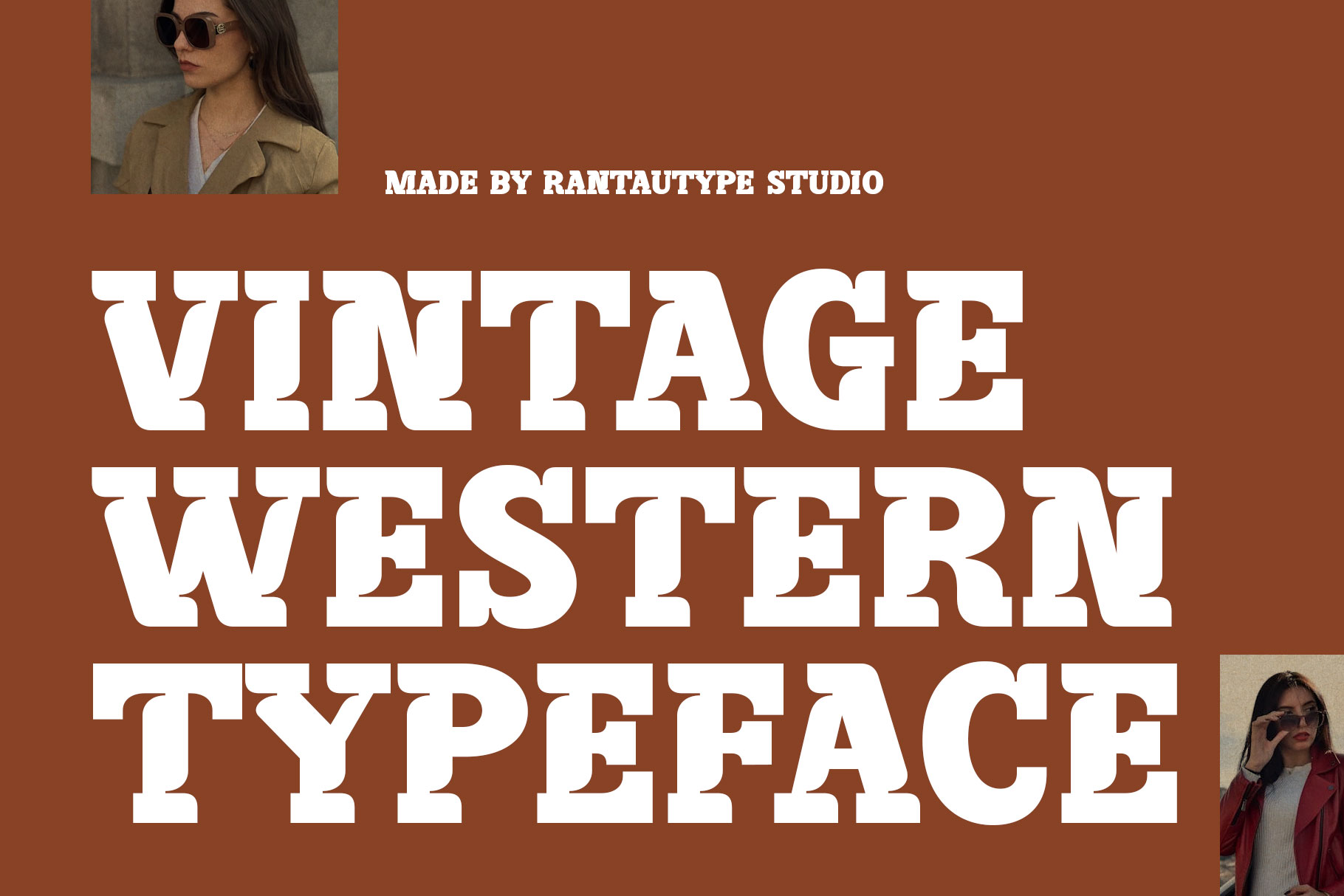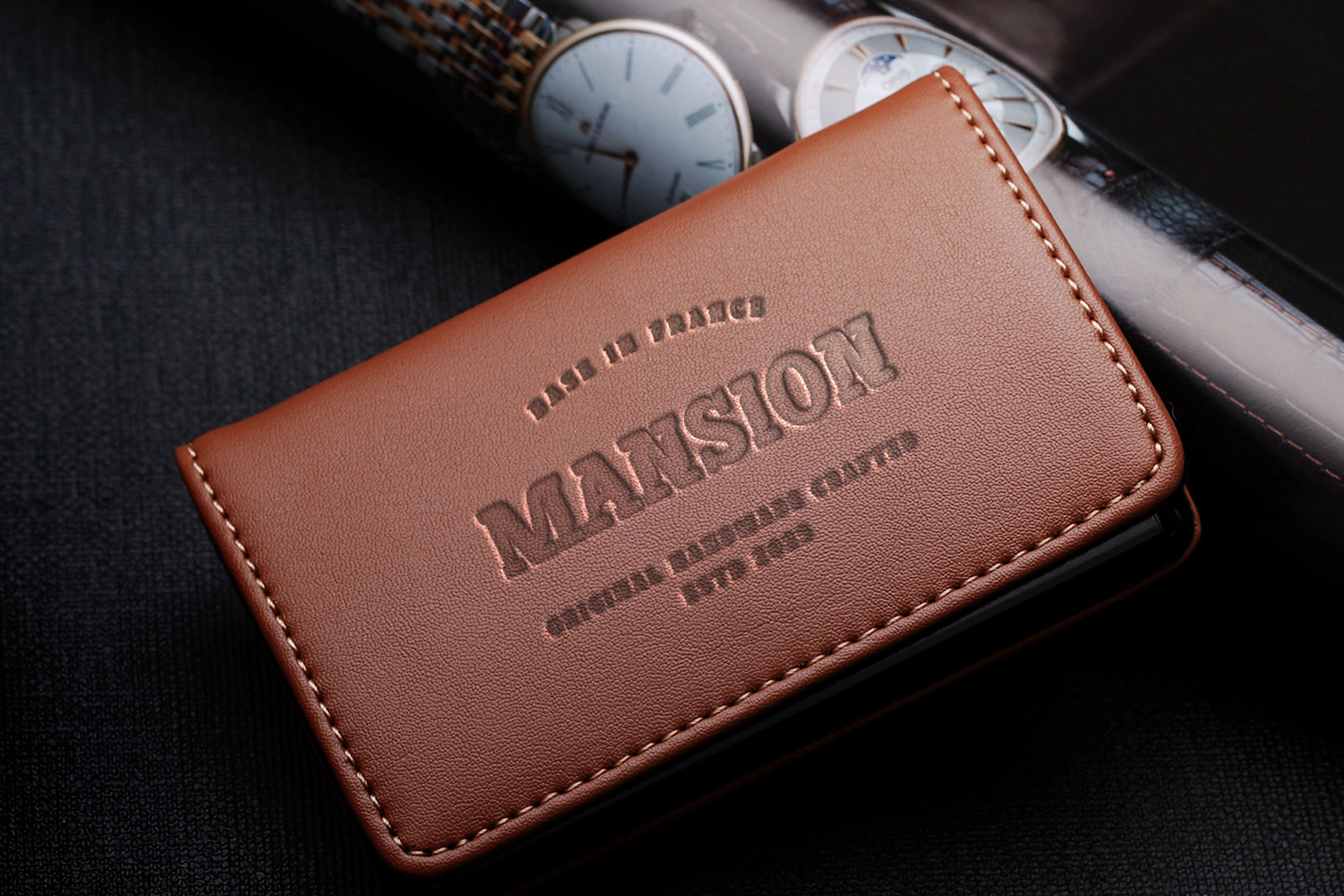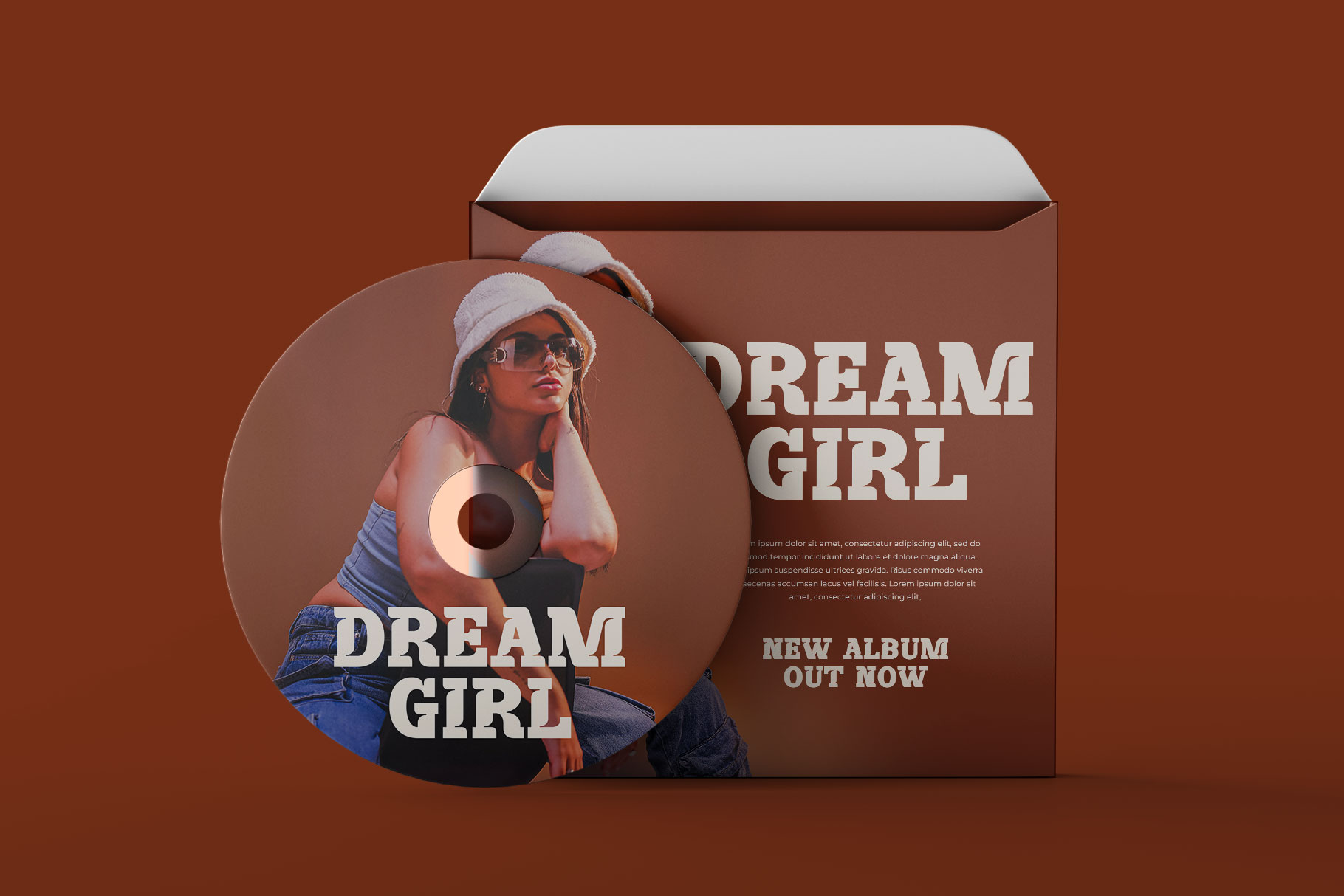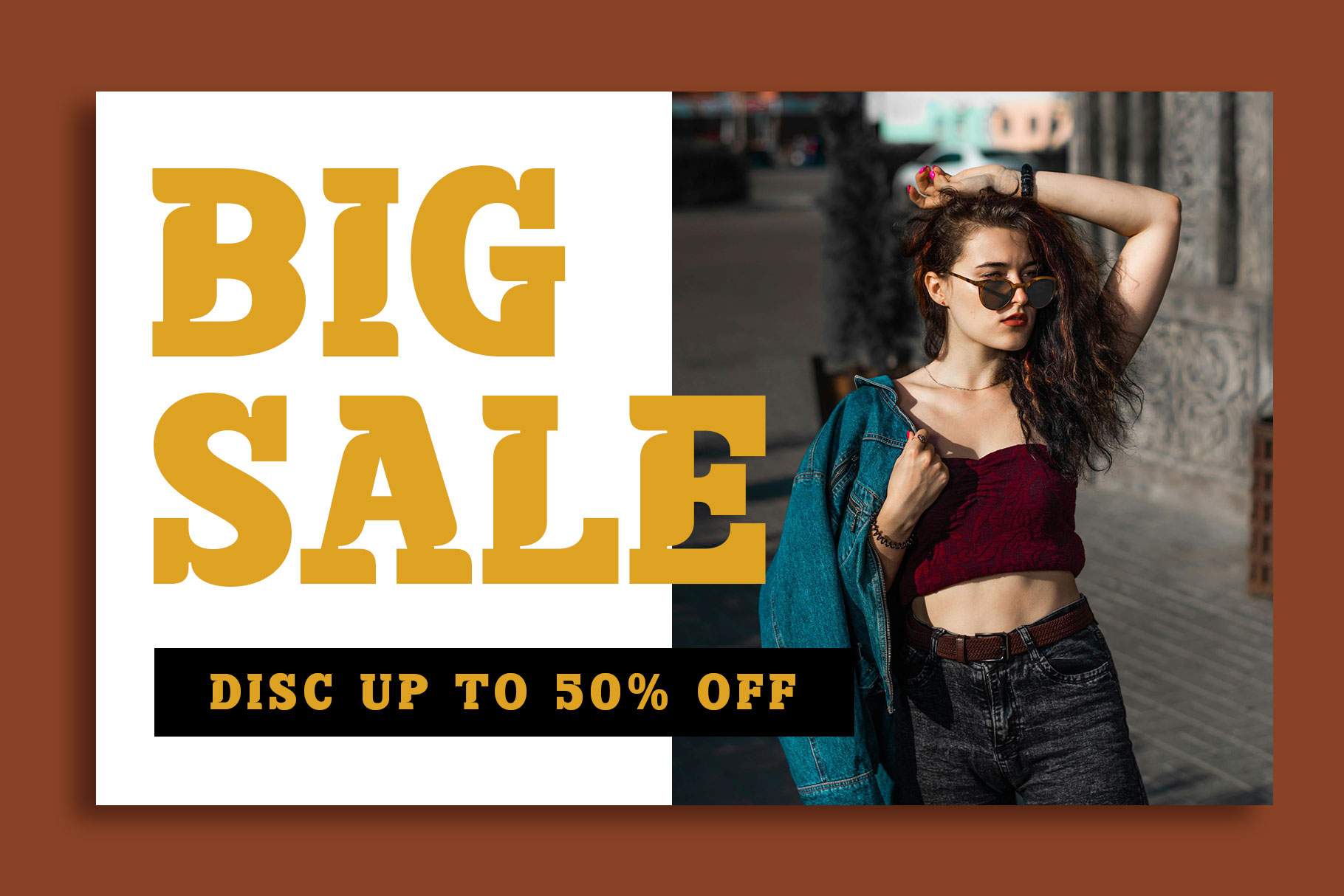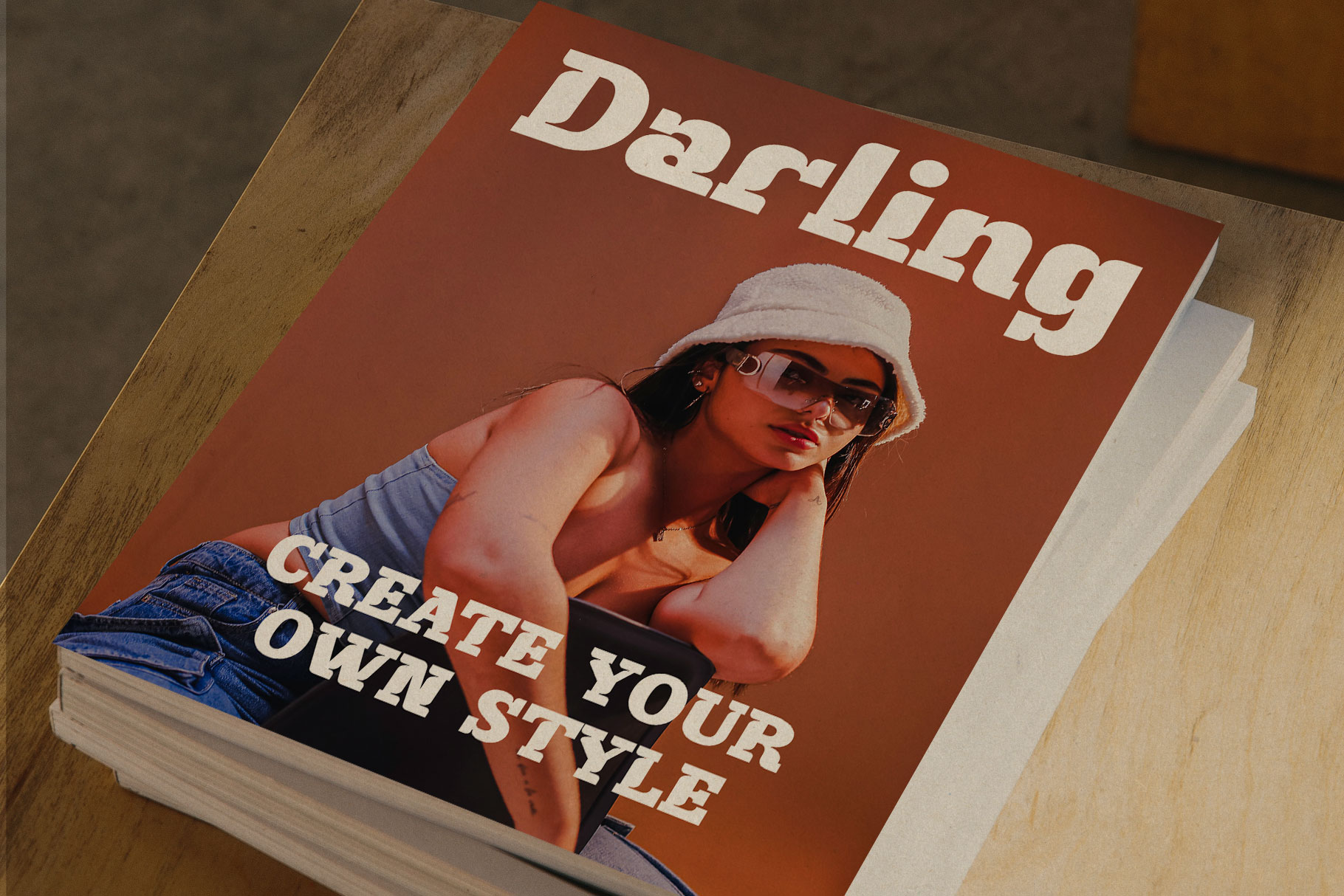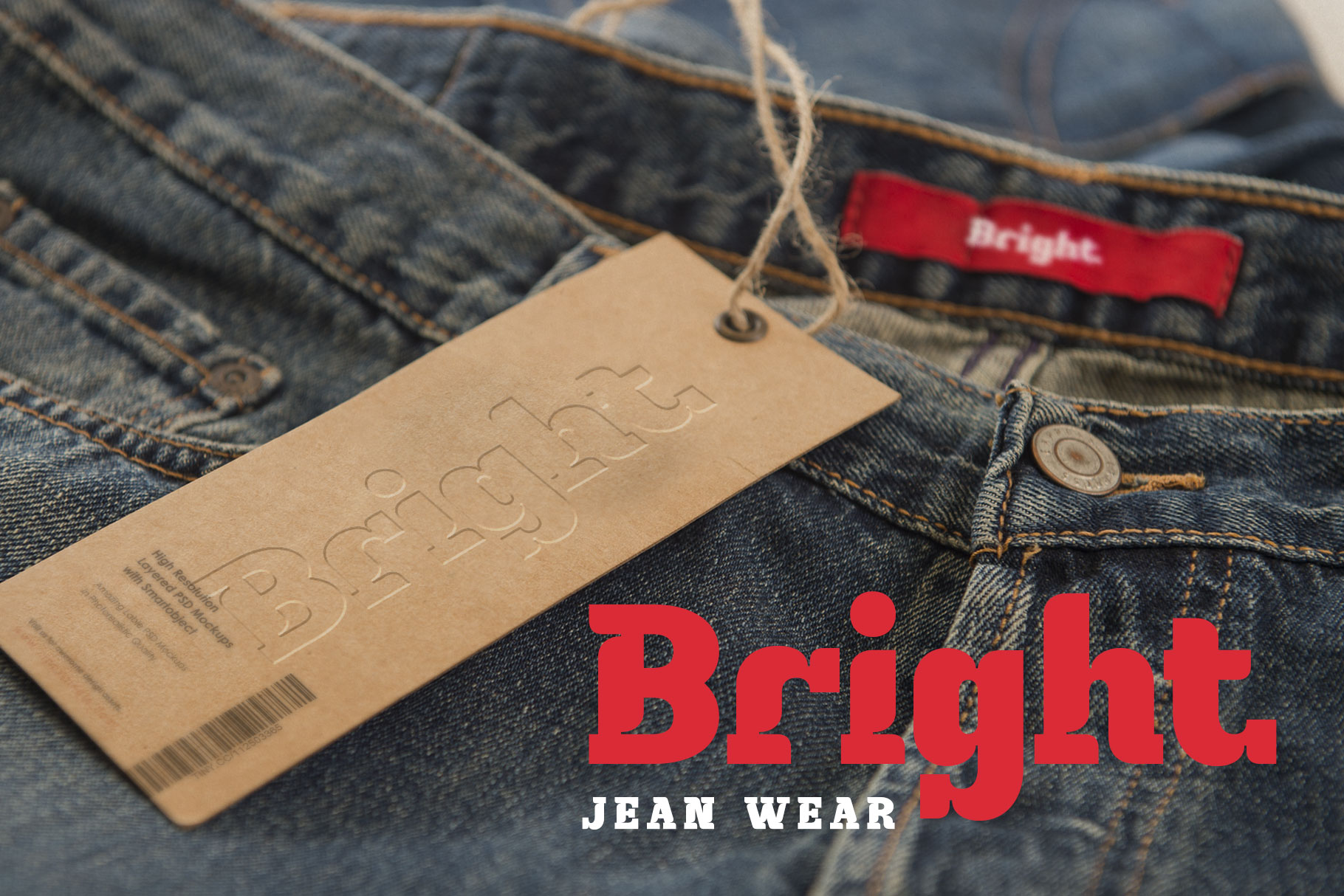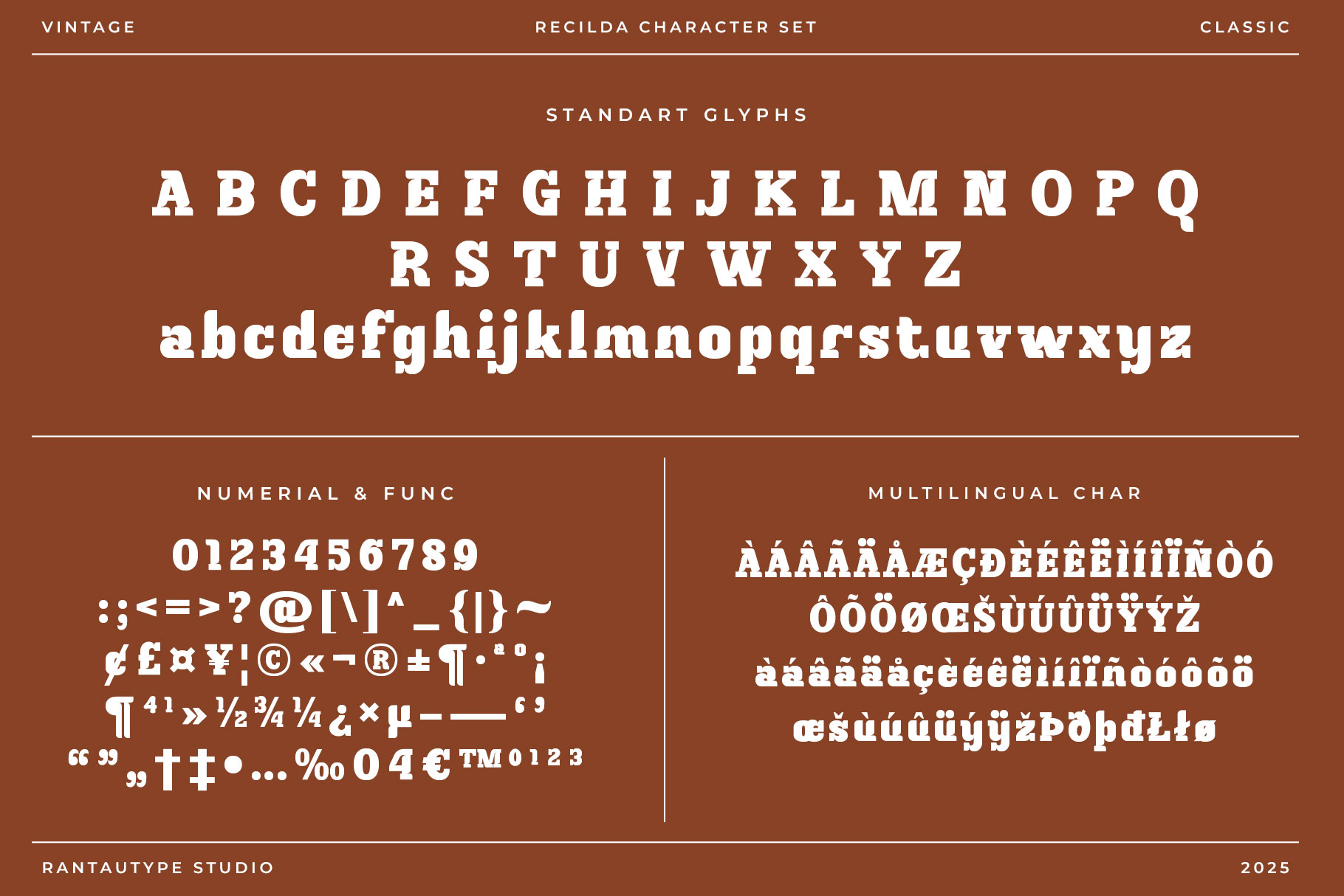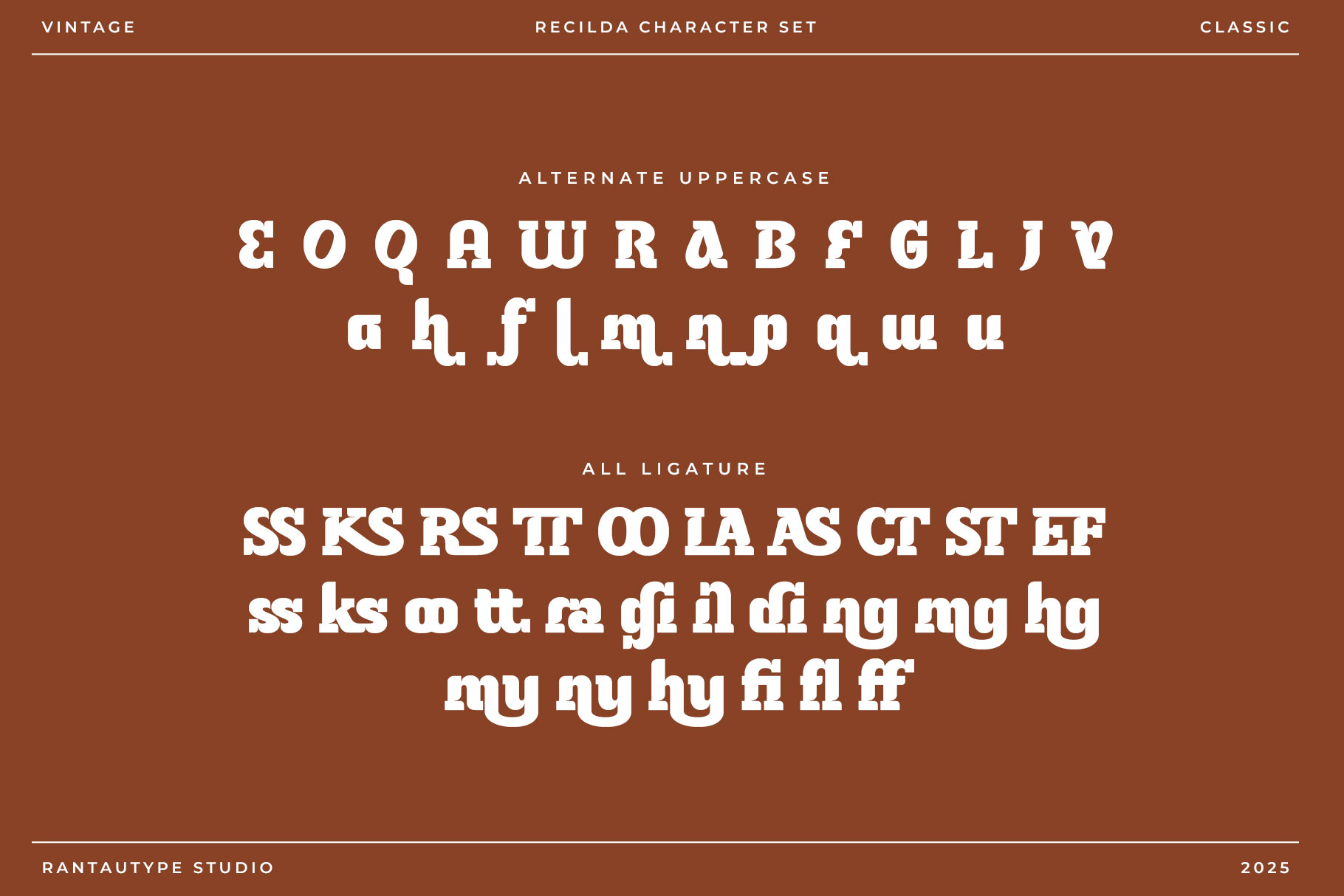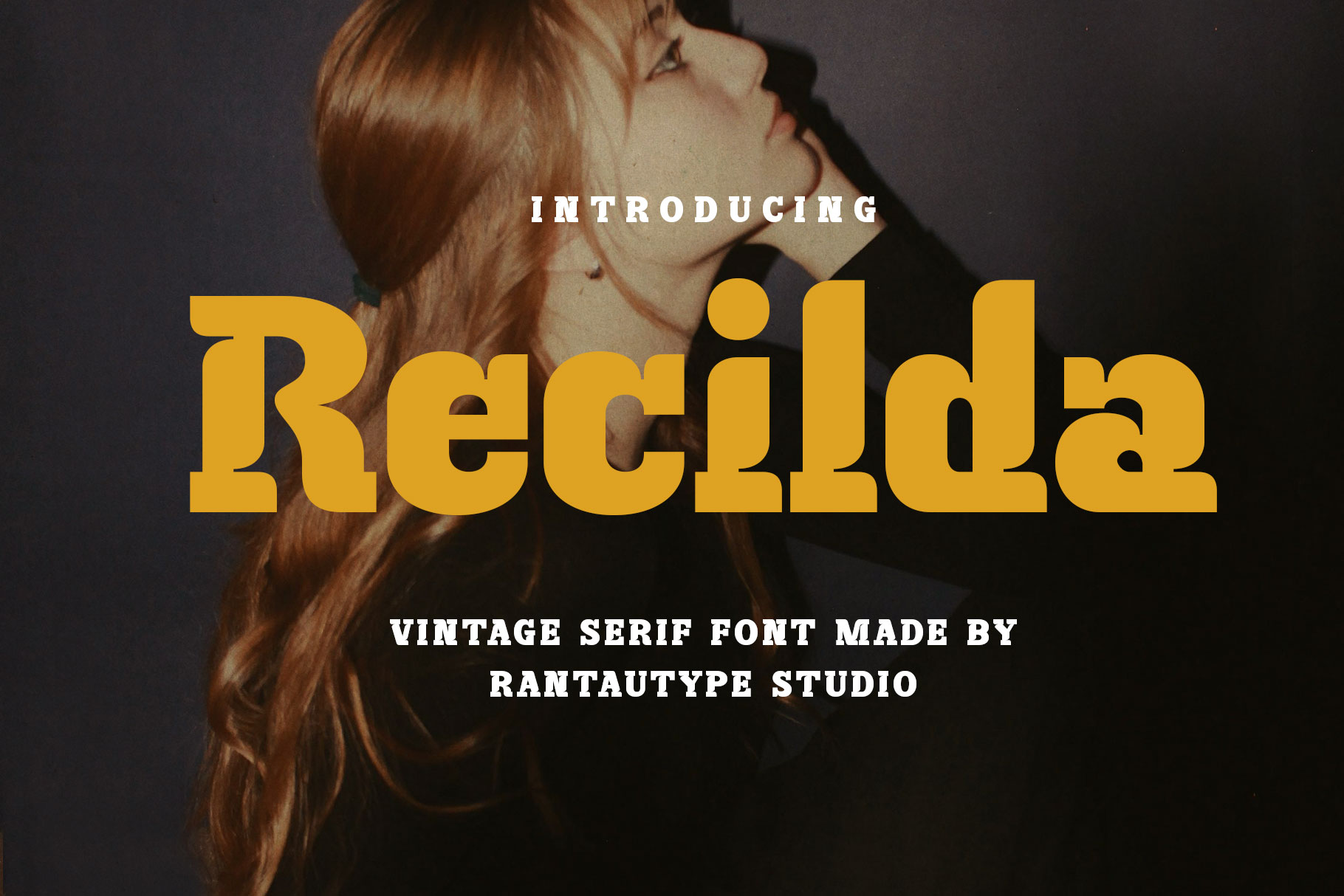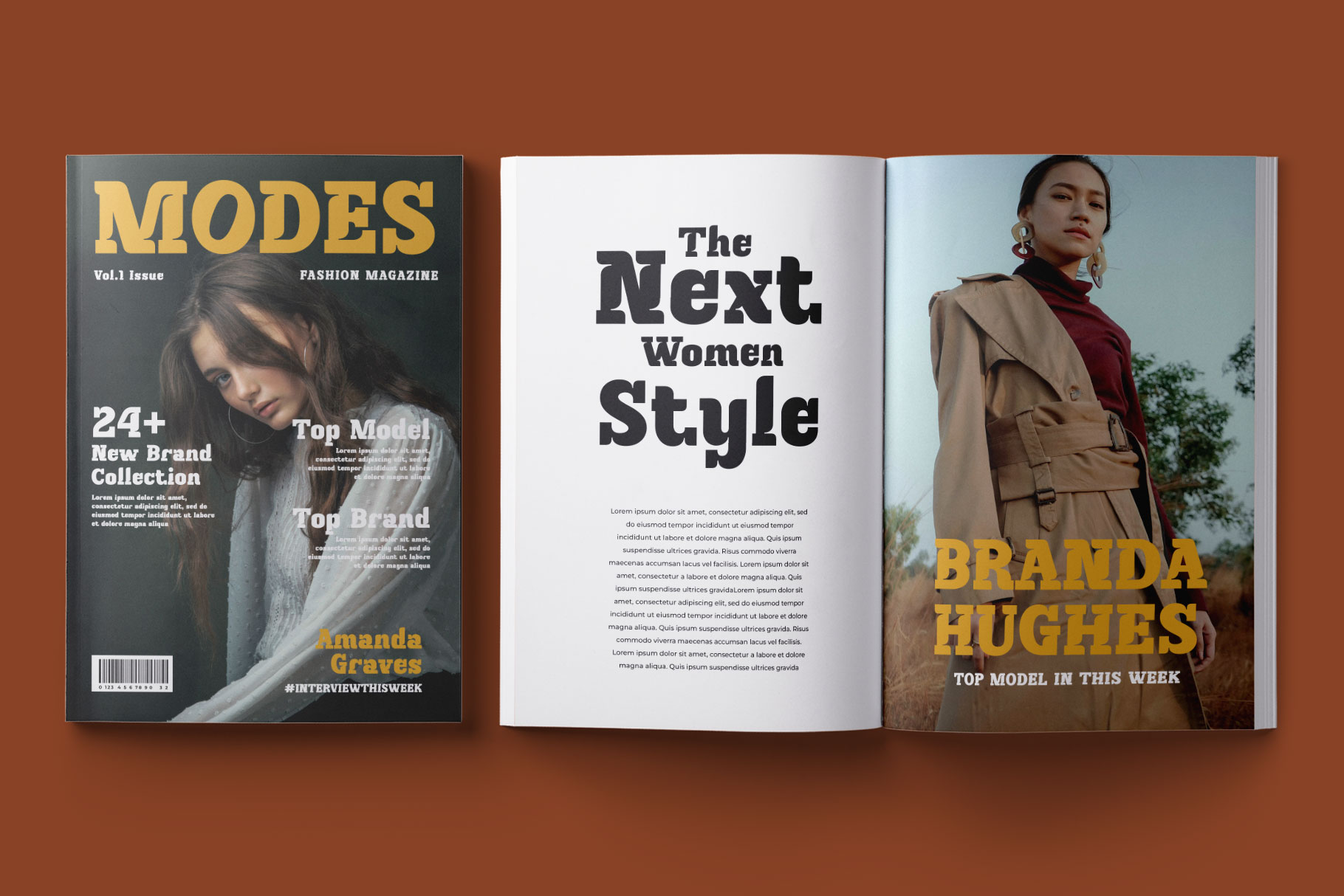
Recilda Vintage Serif Font
Recilda is vintage serif font made with love by rantautype studio. Recilda is a perfectly choice for any creative endeavor, chic, lifestyle design such as logos, advertisements, stationery, branding project, display and magazine, invitation, corporate brand, product design, label, business project and many other project with vintage touch.